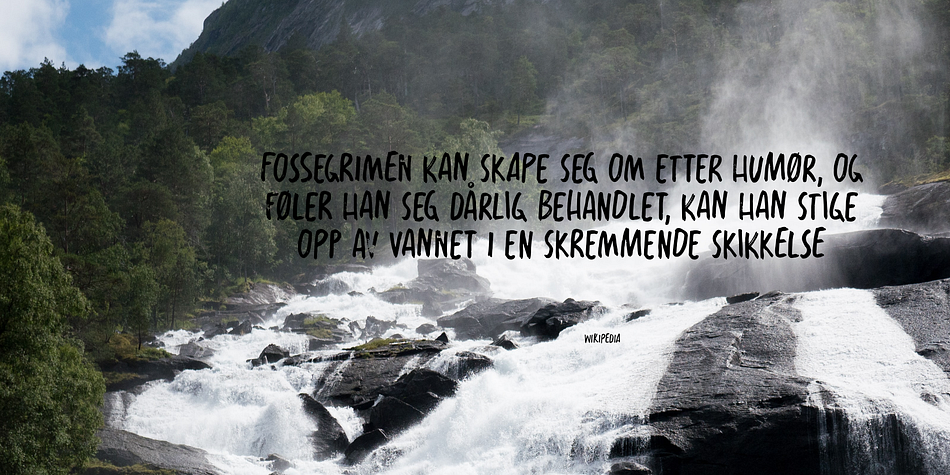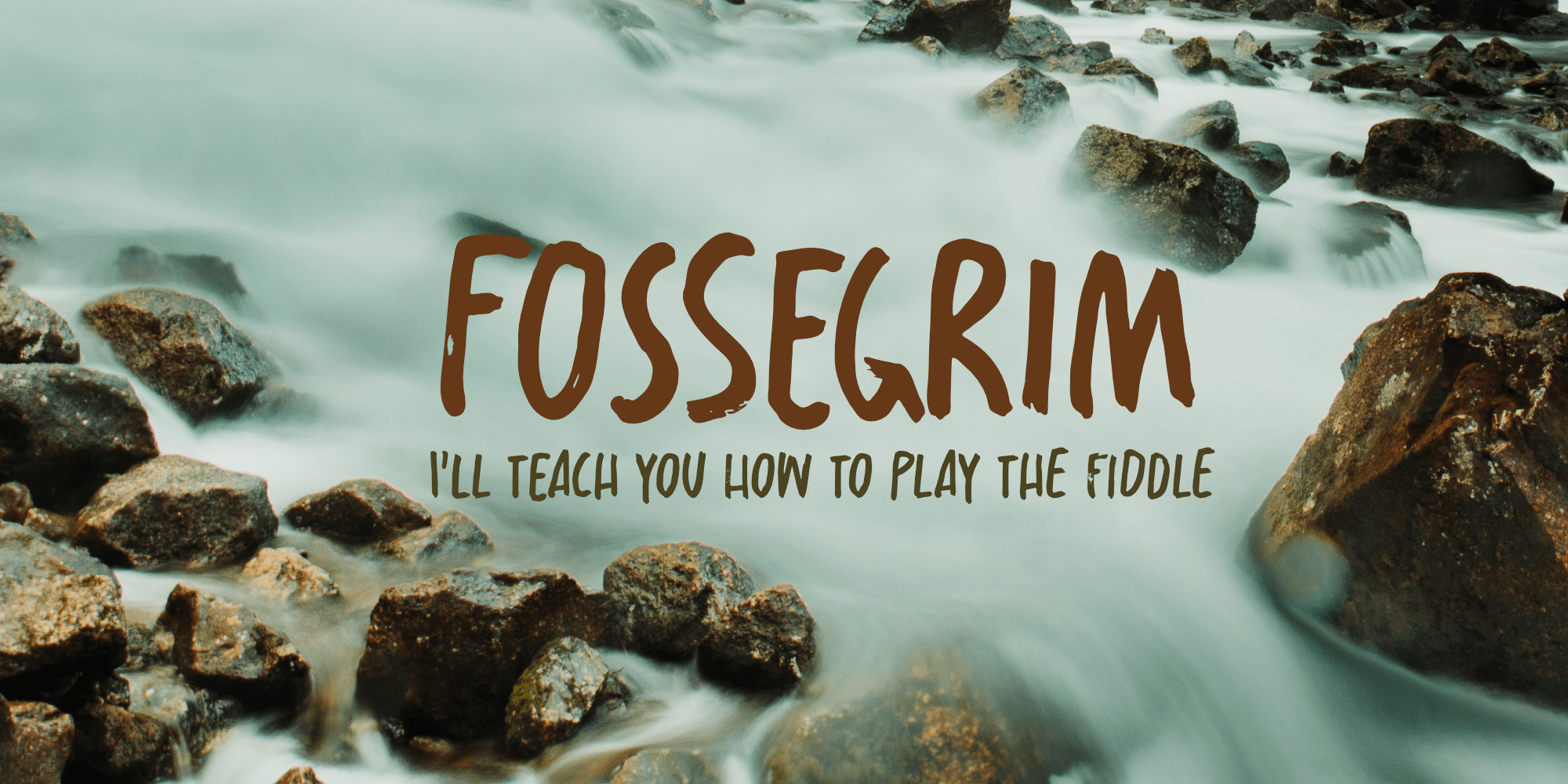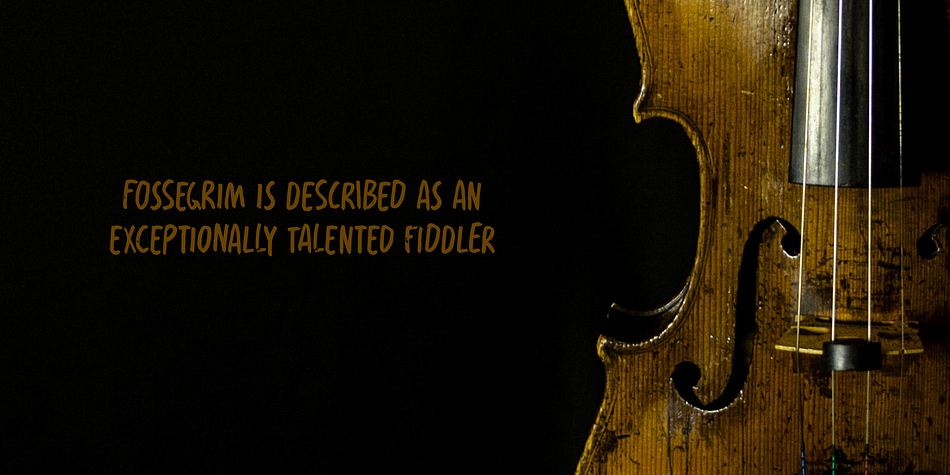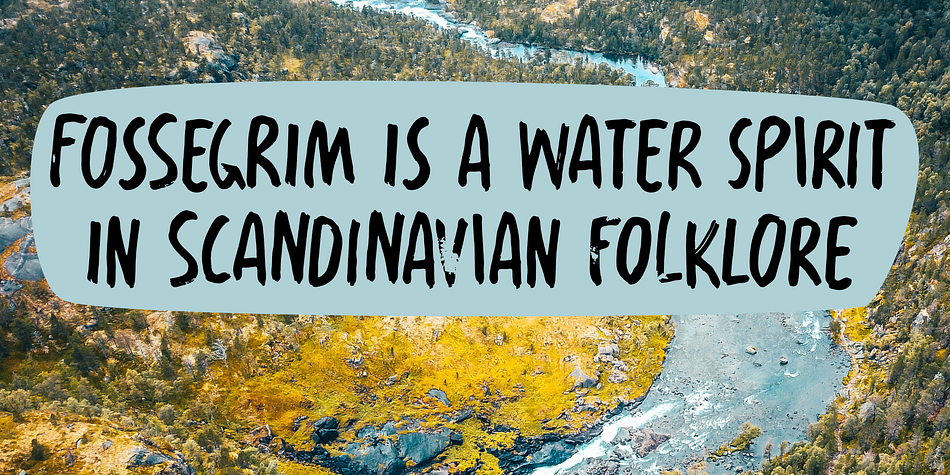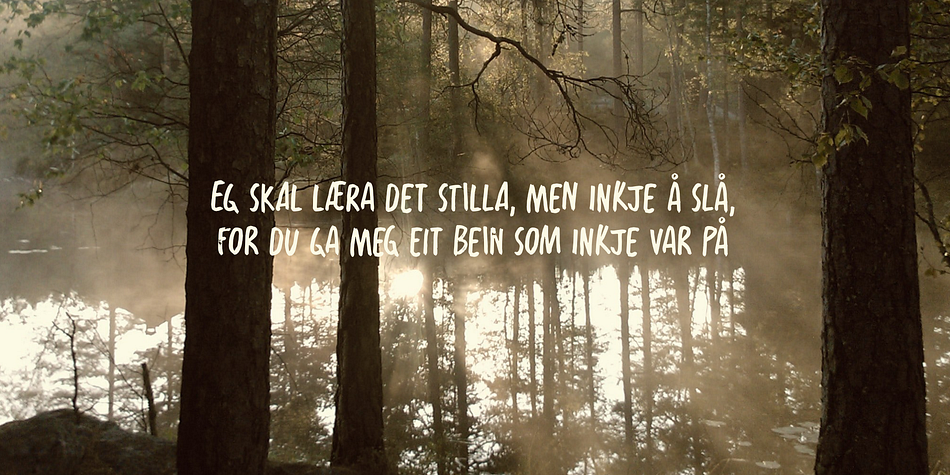
Fossegrim
Fossegrim is a hand display font family. This typeface has two styles and was published by Kitchen Table Type Foundry.
I have always liked Scandinavian folklore, although I have to admit that I didn’t know about the Fossegrim. Fossegrim is a fiddle or harp playing water sprite - usually friendly, but he has been known to lure children and women in deep water with his music.
Fossegrim font is a little bit weird as well: I made it using a broken bamboo satay skewer and Chinese ink. It comes with extensive language support and a set of alternates for the lower case letters.